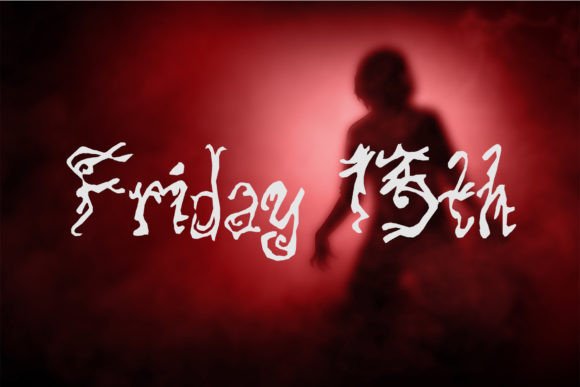
Friday 13th Font Download Display Fonts: Fonts can speak louder than words—especially when it comes to themed or seasonal designs. Enter the Friday 13th Font, a quirky and delightfully eerie display font that captures all the weird, whimsical, and slightly spooky energy you need to make your projects stand out.
Whether you’re designing Halloween party invites, creepy merch, or even just having fun with playful YouTube thumbnails, the Friday 13th font is here to give your work that unmistakable edge. It’s bold. It’s strange. It’s perfectly imperfect.
So sharpen your pencils (and maybe your pitchforks), and let’s dive into what makes this font so hauntingly good.
What Is the Friday 13th Font?
Despite its eerie name, Friday 13th Font isn’t here to scare you—it’s here to help you get creative with a bold, hand-crafted aesthetic. Inspired by classic horror film titles and Halloween typography, this display font feels hand-drawn, exaggerated, and slightly chaotic—in the best way.
With uneven strokes, bouncy baselines, and a horror-comic vibe, this font delivers:
🎃 Character-packed display lettering
👻 Uneven spacing for hand-made charm
🧟 Bold strokes that pop off the screen
💀 Perfect imperfection for quirky titles
Its visual personality sits somewhere between spooky and silly—making it ideal for playful horror, mysterious branding, and themed events.
Where and How to Use Friday 13th Font
The versatility of Friday 13th lies in its theatrical, handwritten style. It’s not meant for body text or long paragraphs—this is a headline font that wants to shout, not whisper.
Here are some creative ways to use it:
🦇 Halloween Design Projects
Naturally, this font shines during spooky season. Use it for:
Trick-or-treat flyers
Party invitations
Pumpkin patch signs
Haunted house advertisements
📺 YouTube & Twitch Graphics
Streaming horror games? Reviewing scary movies? Creating ghost-hunting content? Friday 13th font brings a custom, creepy vibe to your:
Thumbnail titles
Intro slides
Lower-thirds
End screen overlays
🧛 Merchandise & Apparel
T-shirts, mugs, stickers, and tote bags for Halloween or themed drops? This font gives instant “campy horror movie” energy—perfect for seasonal sales.
🎭 Event Posters & Party Flyers
From horror nights to mystery dinners or even carnival-style events, Friday 13th’s dramatic flair gets people curious—and excited.
Design Tips: Making the Most of Friday 13th Font
This is a loud, eccentric font that works best when you treat it like a design centerpiece. Here’s how to really make it shine:
🩸 Go Big or Go Home – It works best in large sizes—don’t try to use it as a caption font.
🌑 Pair with Minimal Fonts – Combine with clean sans-serifs like Montserrat, Lato, or Roboto for balance.
🧙 Play with Color – Orange, red, purple, and black backgrounds work wonders with this font for Halloween.
🧾 Add Texture or Shadow – Use grunge overlays, blood splatters, or glow effects to enhance the horror theme.
Final Thoughts: Don’t Be Afraid to Get Creative
The Friday 13th font is a wild card in the best way. It’s playful, bold, spooky, and brimming with personality. Whether you’re crafting Halloween magic or simply looking for something that breaks the typographic rules, this font gives you the power to stand out.